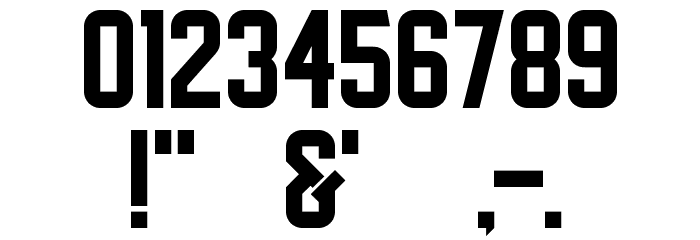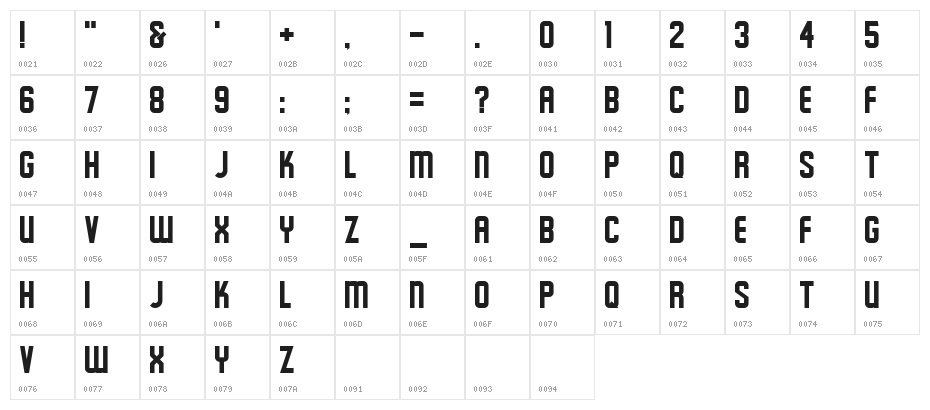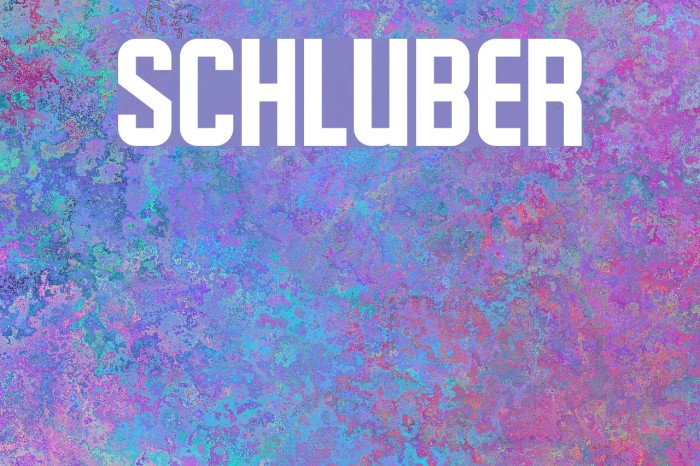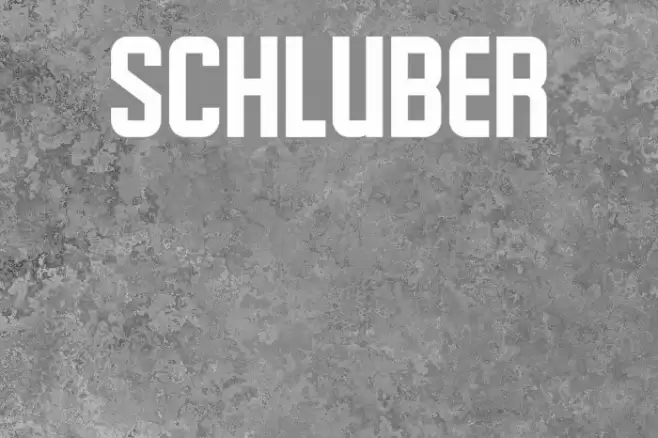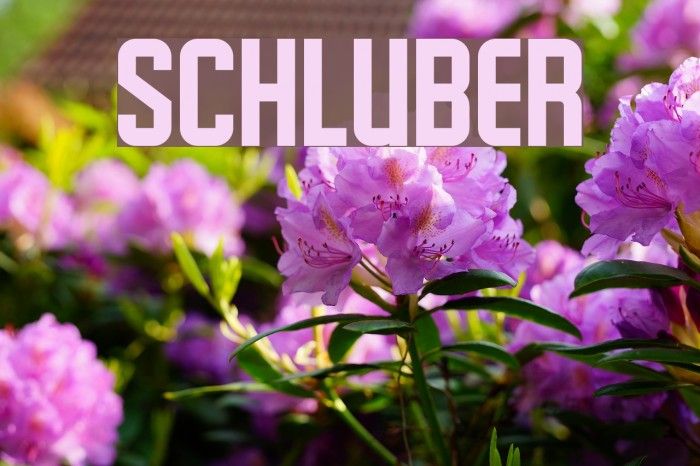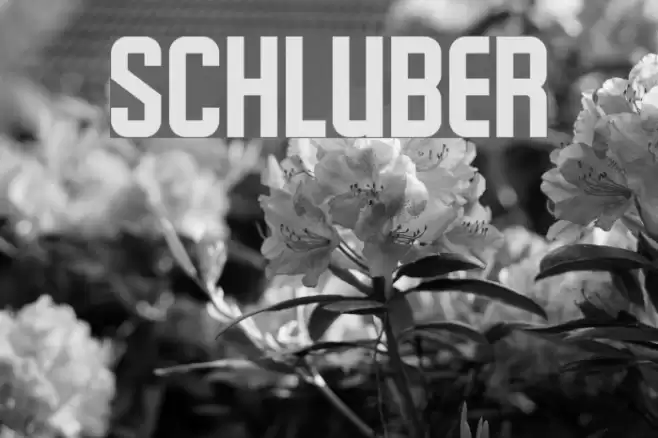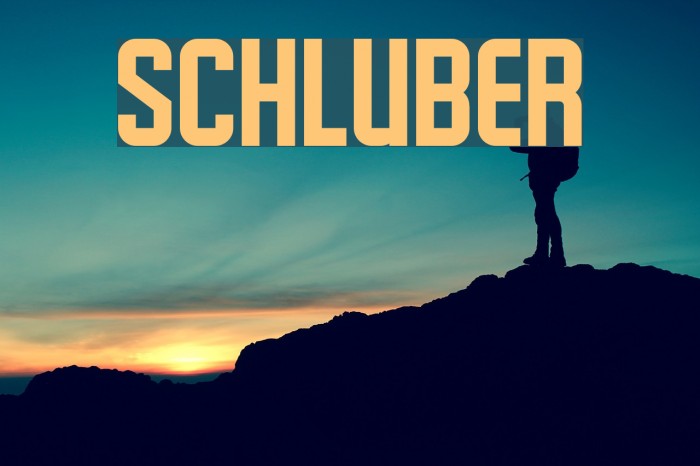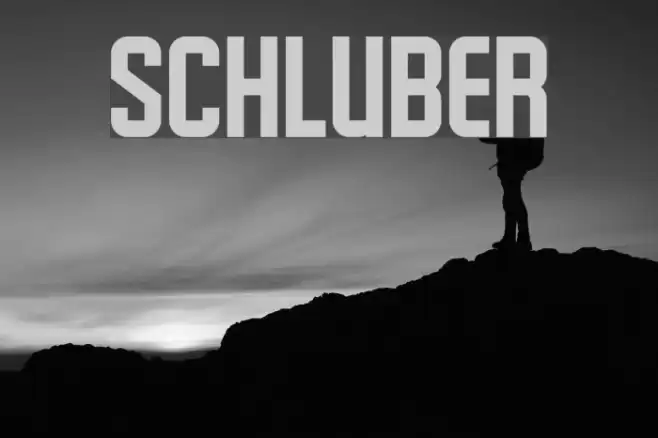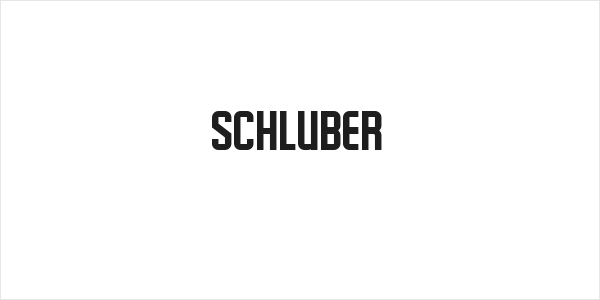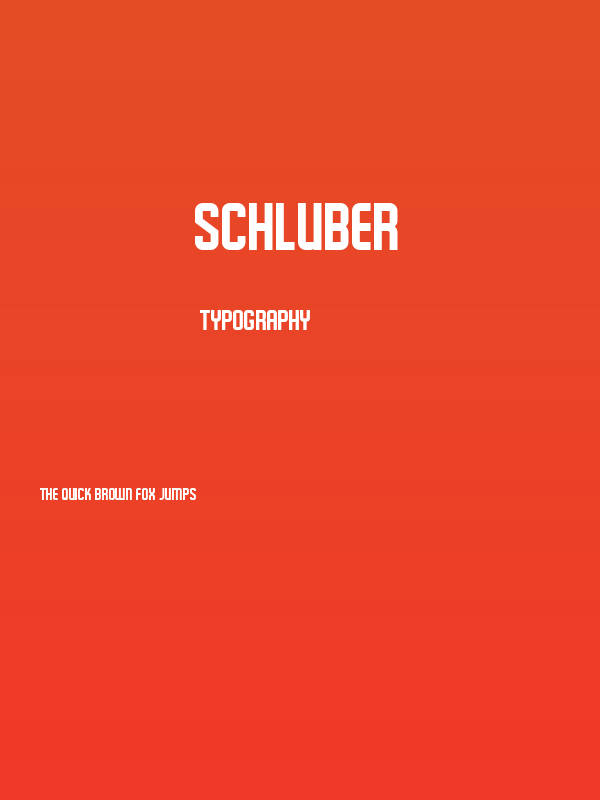
Schluber Font
Schluber Description
This font features a bold and impactful design with strong geometric shapes and a modern aesthetic. The characters are uniformly wide, giving a sense of stability and strength. The uppercase letters are tall and commanding, while the lowercase letters maintain the same width, creating a cohesive look. The numbers are clear and easy to read, with consistent line thickness throughout. Special characters are designed with the same boldness, ensuring they stand out. This font is ideal for making a statement with its striking appearance and clear legibility.
| Proposed Projects | Ideal for headlines, posters, branding, and any project requiring a strong visual impact. |